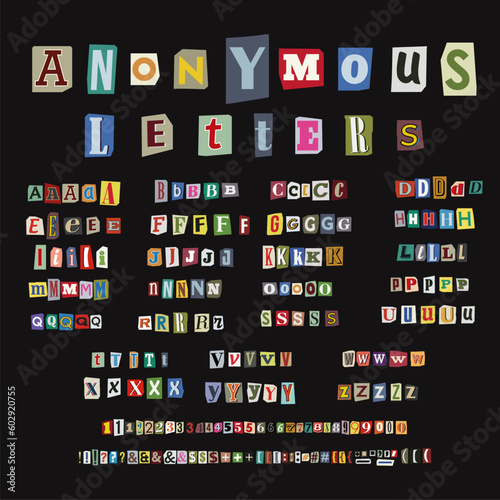
Anonymous ransom color criminal alphabet letters cut from newspapers and magazines. Ransom Note. Paper letters, numbers and symbols. Vector Clipping alphabet. Blackmail or Ransom Anonymous Note Font